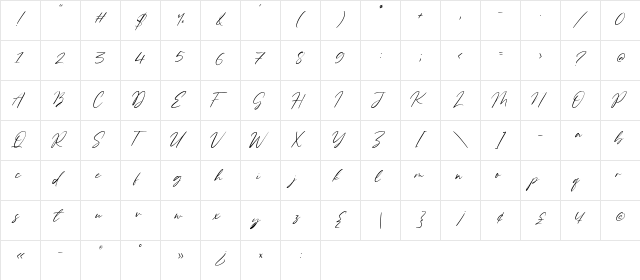
Gardenisa Regular
Design Context for Gardenisa Typeface
Gardenisa is a composed and adaptable typeface that performs quietly and consistently across a wide range of design contexts.